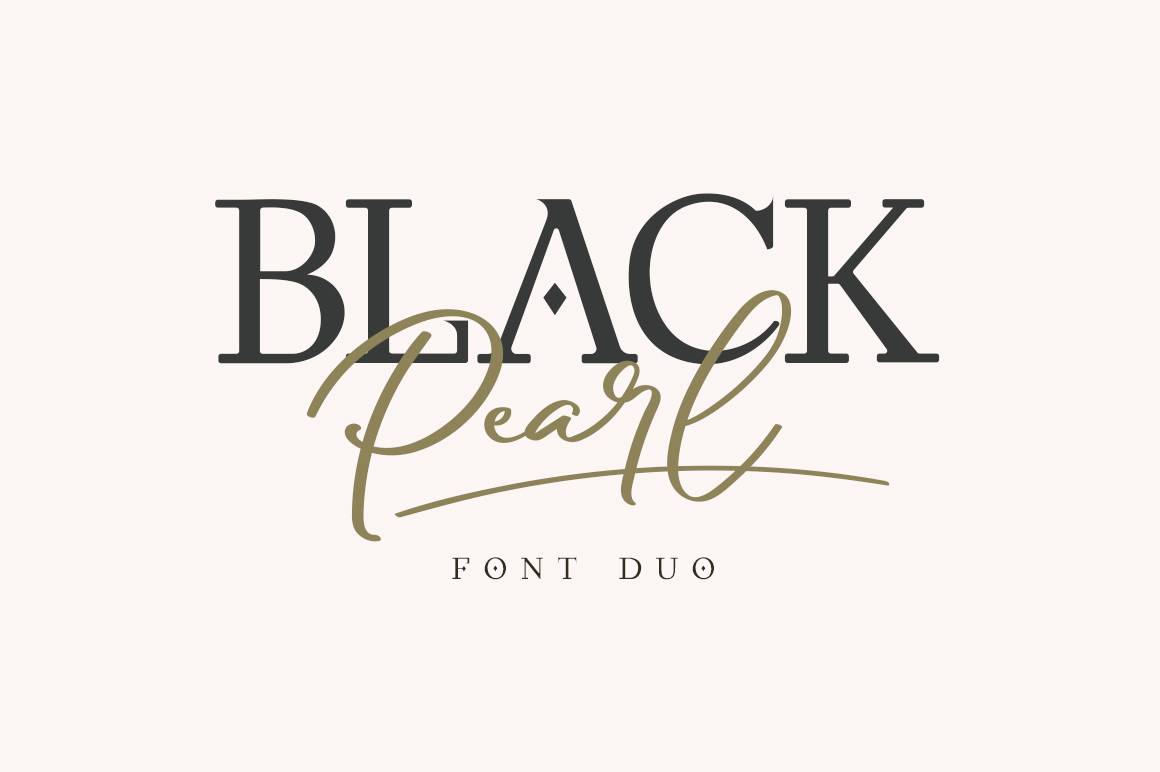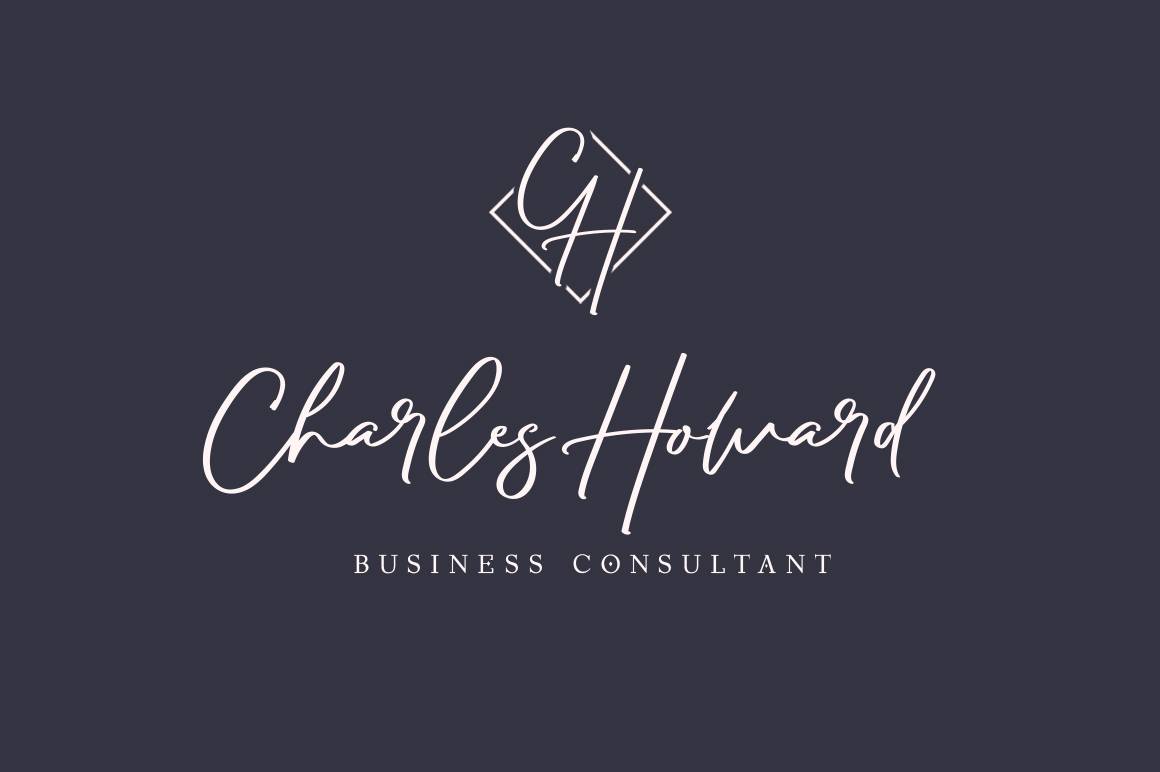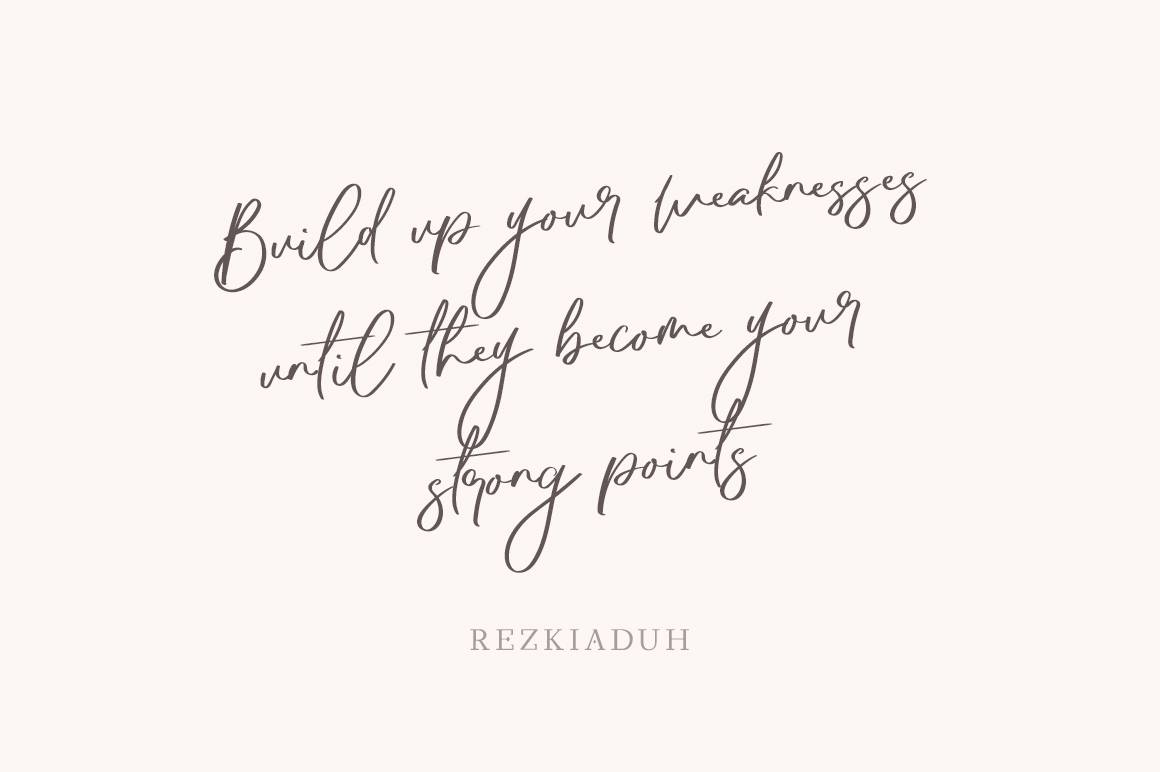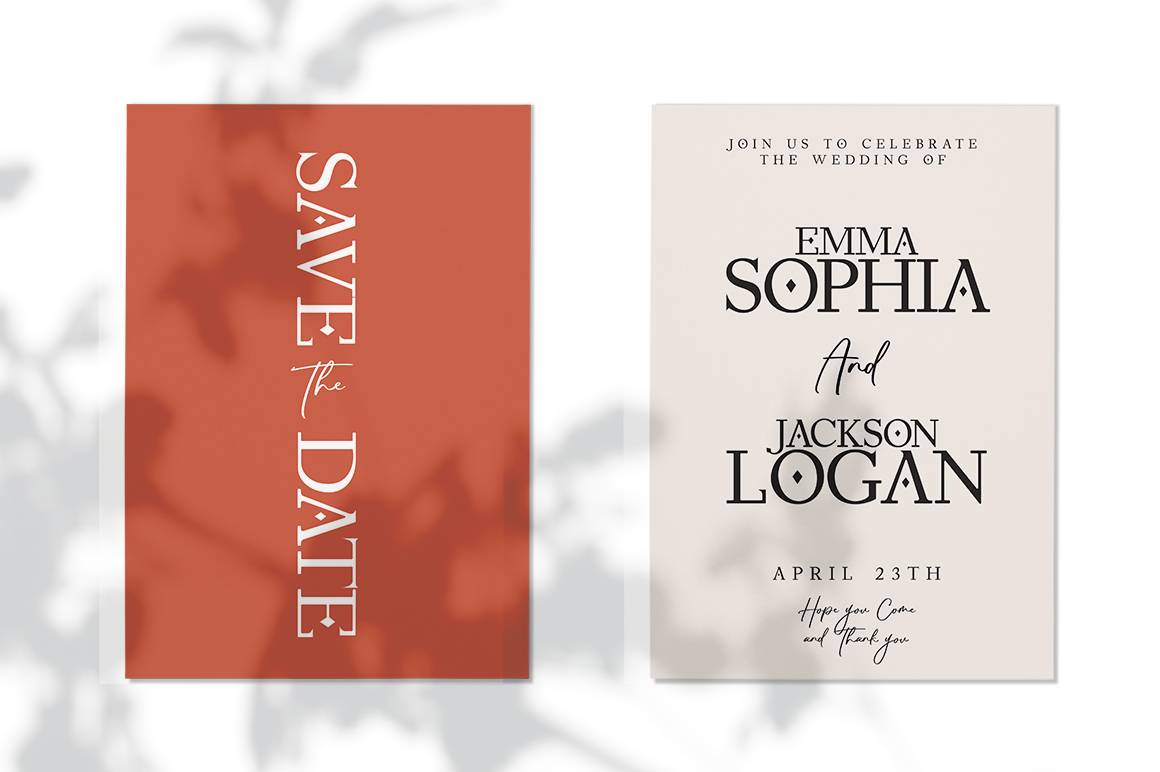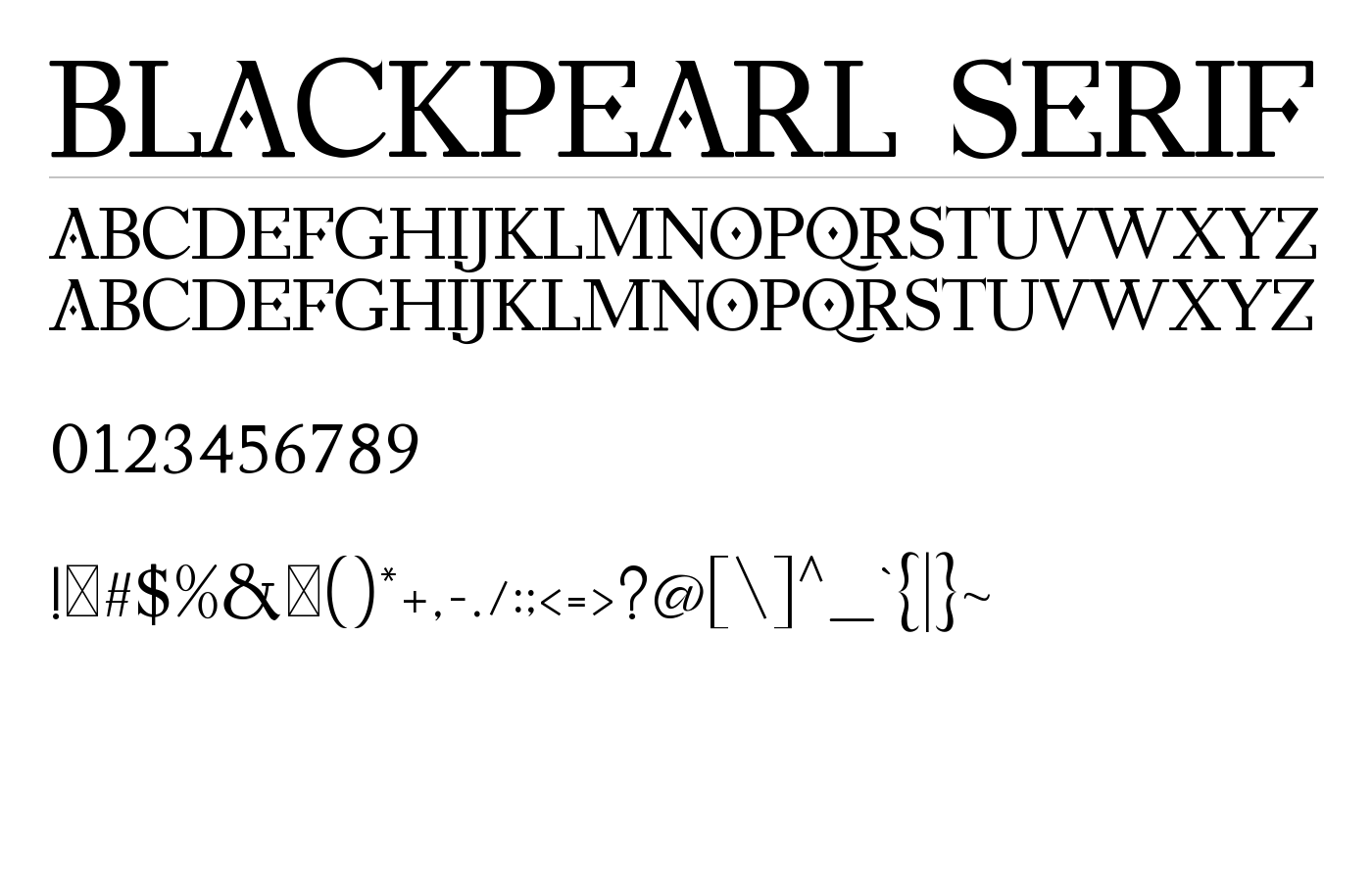
Black Pearl is a refined serif font characterized by its high contrast strokes and elegant, narrow proportions. Its distinctive diamond-shaped details within letters add a unique, classic touch, making it perfect for luxury branding, editorial headlines, and sophisticated design projects. This font combines timeless charm with a sharp, stylish personality that stands out in formal and upscale contexts.
Black Pearl Font
About Black Pearl Font